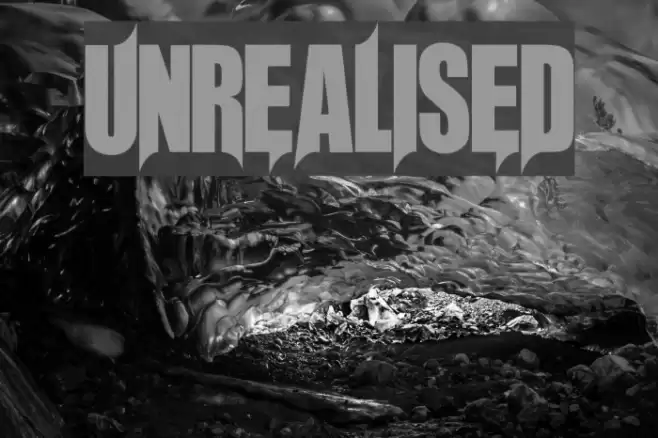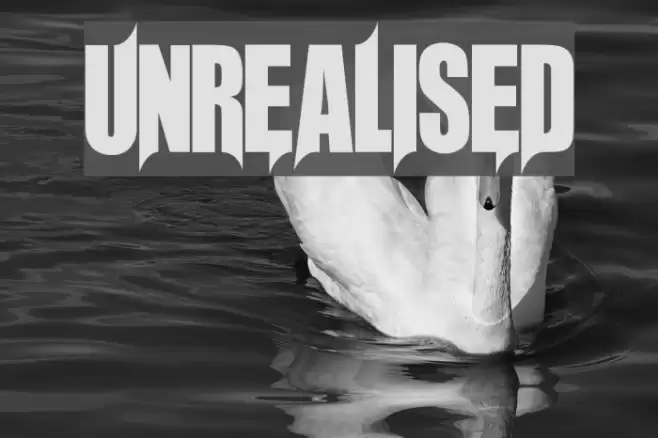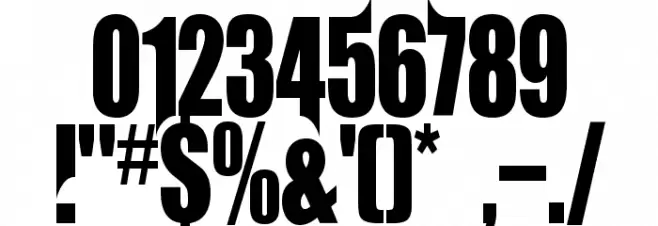
Unrealised Font
Unrealised Description
This font is characterized by its bold and impactful design, featuring thick, block-like letters that convey strength and authority. The uppercase and lowercase letters maintain a consistent weight, creating a uniform appearance. The numbers and special characters are equally robust, ensuring they stand out in any context. The font's design is highly geometric, with sharp angles and clean lines that enhance its modern appeal. Its high contrast between the thick strokes and minimal spacing between characters makes it ideal for grabbing attention.
A bold, geometric font with high contrast and minimal spacing from Uncategorized fonts.
- Proposed Projects: Ideal for posters, headlines, branding, and any project requiring a strong visual impact.